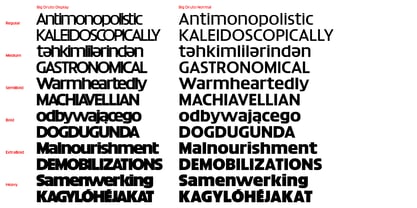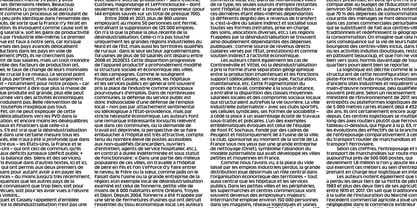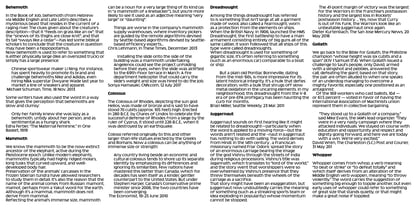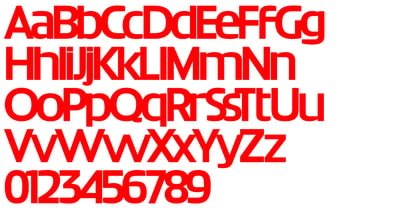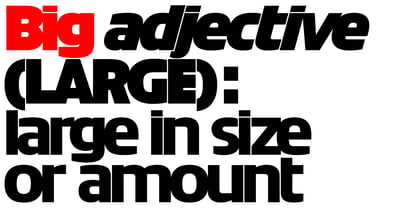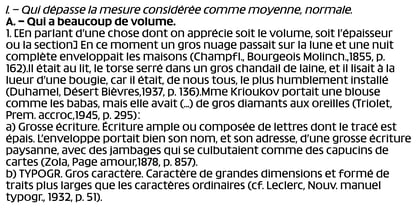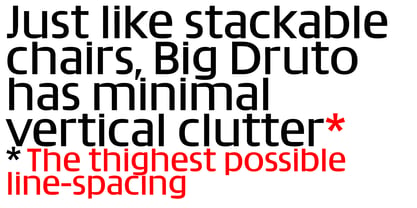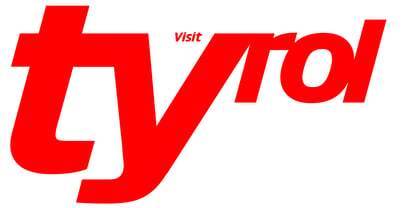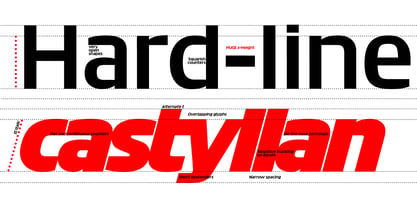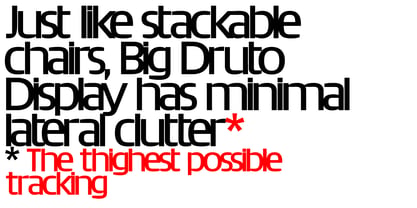
Big Druto
Die Schriftfamilie Big Druto wurde von entworfen und von Blaze Type veröffentlicht. Big Druto enthält 24 Stile und Familienpaketoptionen. Mehr über diese Familie
While Druto reflects on density in text, Big Druto pushes things further, as to become a study of density in larger sizes. It addresses white space in large titles as an issue. Big Druto has a bigger still x-height than Druto, which allows for minimal leading. It has squarish shapes, with less humanistic swing, that give an impression of fullness in text. Its diacritics are attached. It is overall made to look strong in large sizes, with low contrast and barely any descenders, while still remaining legible in smaller sizes. Big Druto Display is for even larger sizes, with still less white spaces remaining. So much so, that it is designed with negative tracking. Each glyph is designed, each terminal and each bowl is cut on the nose to create a uniform pattern of gaps and overlap. An elegant and systematic use of negative tracking, which cannot be achieved with tracking with an off-the-shelf font. Big Druto Display, although being of very low contrast, also brings contrast back. Negatives spaces become thin lines and start playing the role of high contrast, giving a subtle display quality.